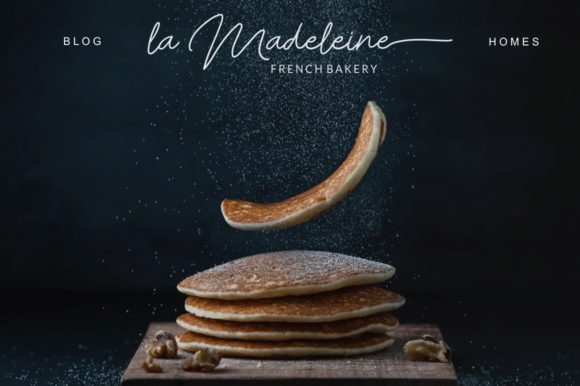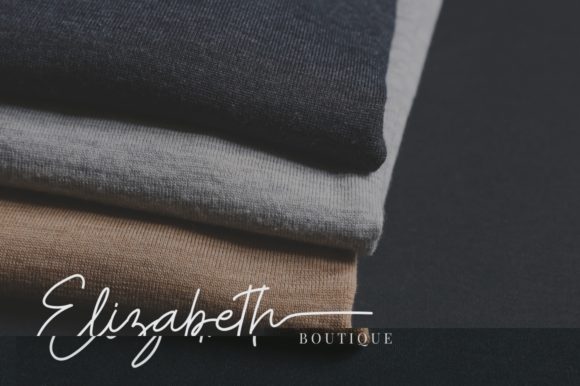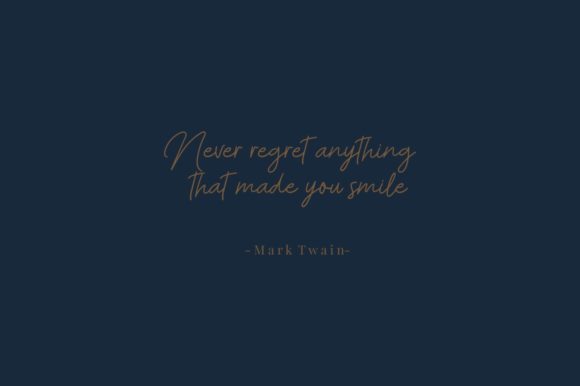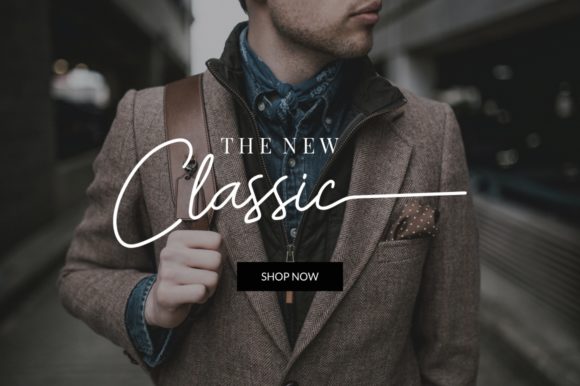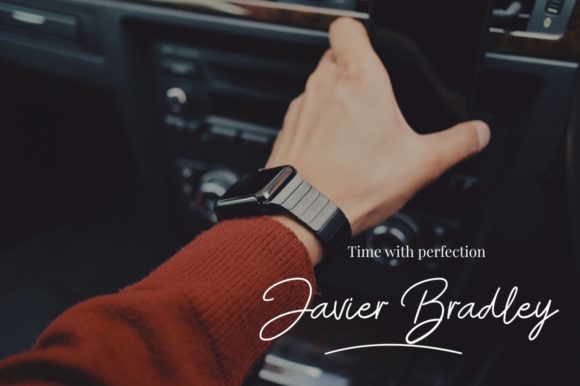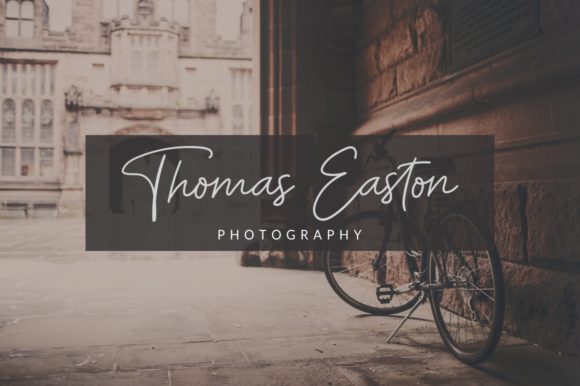
Introducing Black Colnes Font: Elevate Your Designs with a Touch of Elegance
Are you looking for a font that adds a personal touch to your designs? Look no further than Black Colnes Font, a simple yet stunning handwritten font that is perfect for a variety of creative projects. In this article, we’ll explore the features and benefits of Black Colnes Font, and how it can elevate your designs to the next level.
A Beautifully Crafted Handwritten Font
Black Colnes Font is a beautifully crafted handwritten font that exudes elegance and sophistication. Its simple and flowing design makes it perfect for a wide range of applications, from wedding invitations and thank you cards to quotes, greeting cards, logos, and business cards. Whether you’re a designer, crafter, or DIY enthusiast, Black Colnes Font is a versatile and stylish choice that is sure to impress.
Wedding planners, event coordinators, and DIY brides will love Black Colnes Font for its romantic and whimsical feel. Use it to create stunning wedding invitations, save-the-date cards, and thank you notes that set the tone for your special day. The font’s elegant design and flowing script make it perfect for creating beautiful and memorable event designs.
One of the best features of Black Colnes Font is that it is PUA (Private Use Area) encoded, which means you can access all of the glyphs and swashes with ease. This makes it easy to customize your designs and add a personal touch to your projects. With PUA encoding, you can easily access alternative characters, ligatures, and swashes to create unique and eye-catching designs.
Black Colnes Font is a versatile font that can be used for a wide range of design projects, including:
- Wedding invitations and event designs
- Thank you cards and greeting cards
- Quotes and typography art
- Logos and branding designs
- Business cards and stationery
Why Choose Black Colnes Font?
So why choose Black Colnes Font for your design projects? Here are just a few reasons:
- Elegant design: Black Colnes Font has a simple yet elegant design that adds a touch of sophistication to any project.
- Versatility: The font can be used for a wide range of design projects, from wedding invitations to logos and business cards.
- PUA encoded: The font is PUA encoded, making it easy to access alternative characters, ligatures, and swashes.
Black Colnes Font is a beautiful and versatile handwritten font that is perfect for designers, crafters, and DIY enthusiasts. Its elegant design, flowing script, and PUA encoding make it a great choice for a wide range of design projects. Whether you’re creating wedding invitations, logos, or greeting cards, Black Colnes Font is sure to add a touch of elegance and sophistication to your designs.